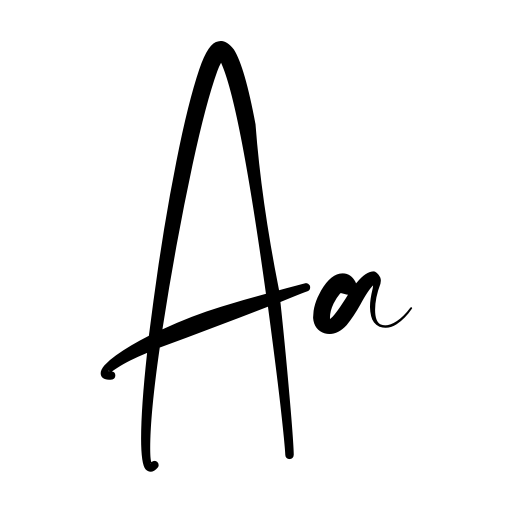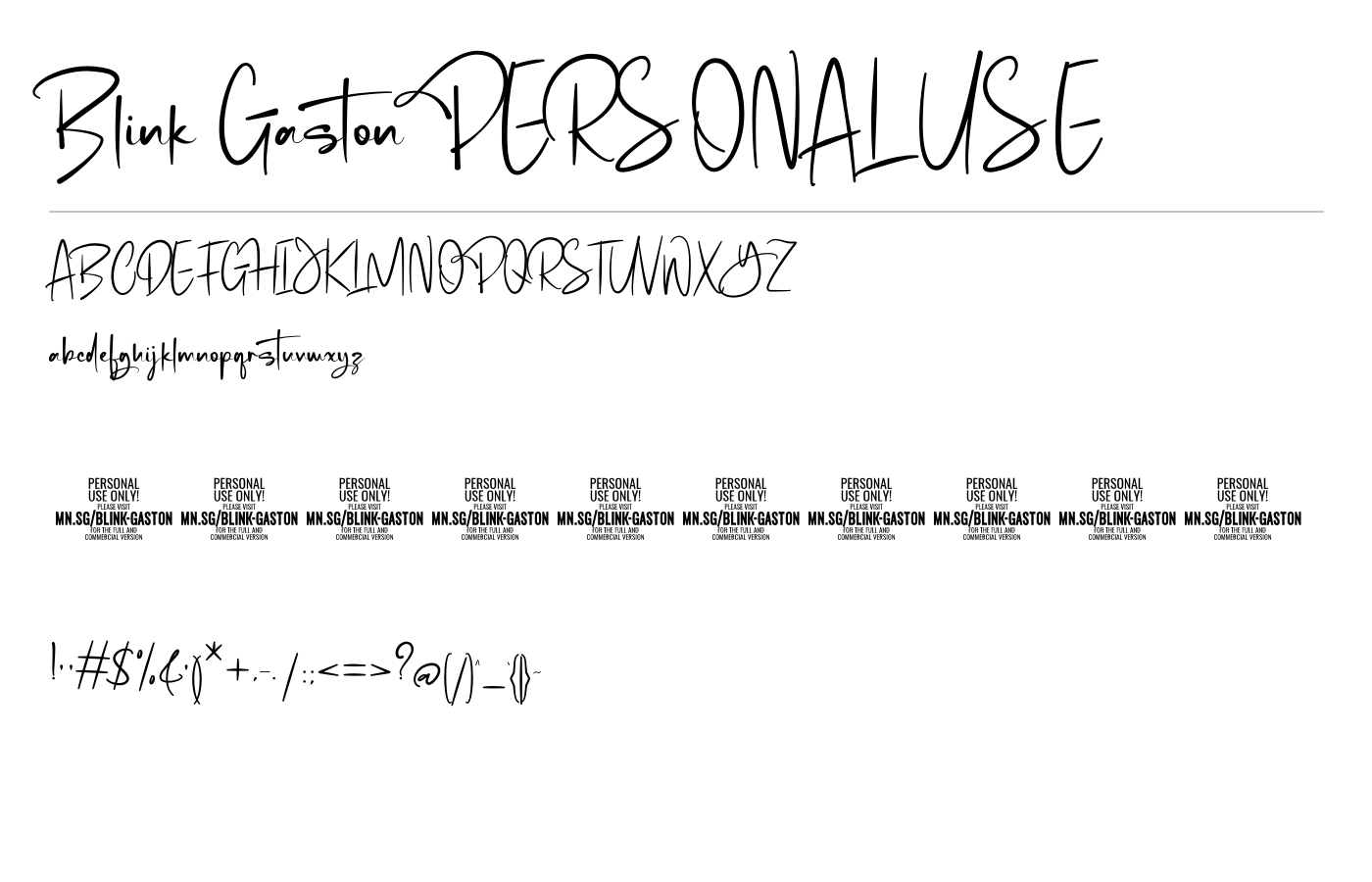
Blink Gaston is a playful and casual handwritten font with a light, airy feel and a slender, elongated structure. Its tall, slightly irregular letterforms give it a personal, artistic charm, making it perfect for creative projects, informal branding, or expressive headlines that seek a relaxed and approachable vibe. This font works well where a natural, hand-drawn style adds warmth and individuality.
Blink Gaston PERSONAL USE Font
About Blink Gaston PERSONAL USE Font